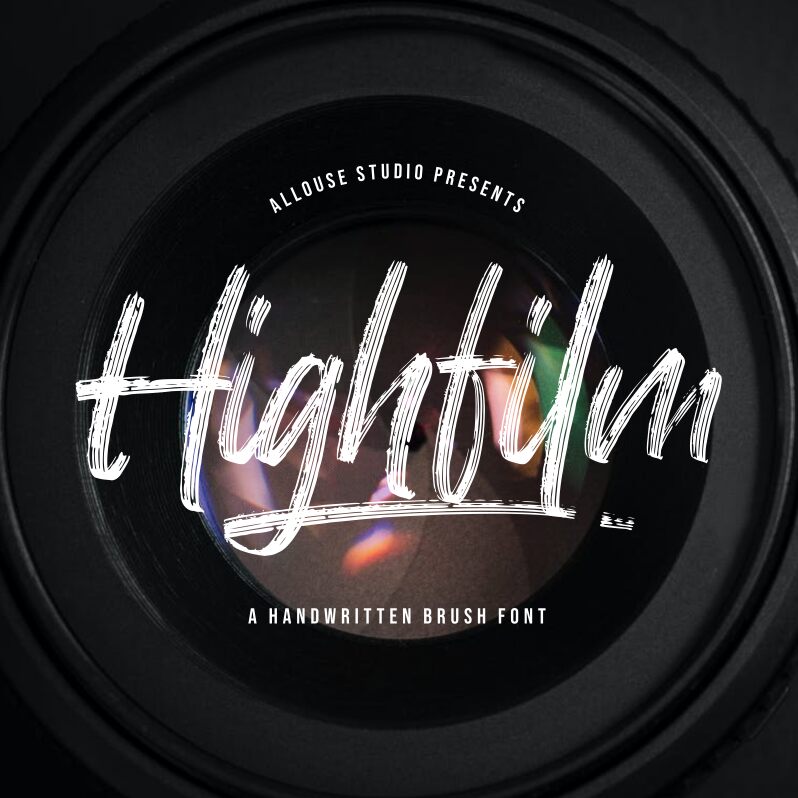
Highfilm
Highfilm, the latest creation from Allouse Studio, is a captivating dry brush font that adds a touch of sophistication to any project. Its rough edges and organic strokes make it perfect for creative designs, such as logos, branding materials, packaging designs and social media graphics. The semi-bold font style gives it an elegant yet playful look that can be used in a variety of industries such as fashion, beauty and lifestyle. Its wide width makes it an excellent choice for headlines or titles while its narrow width works well for body text. With Highfilm, your projects are guaranteed to stand out from the rest.